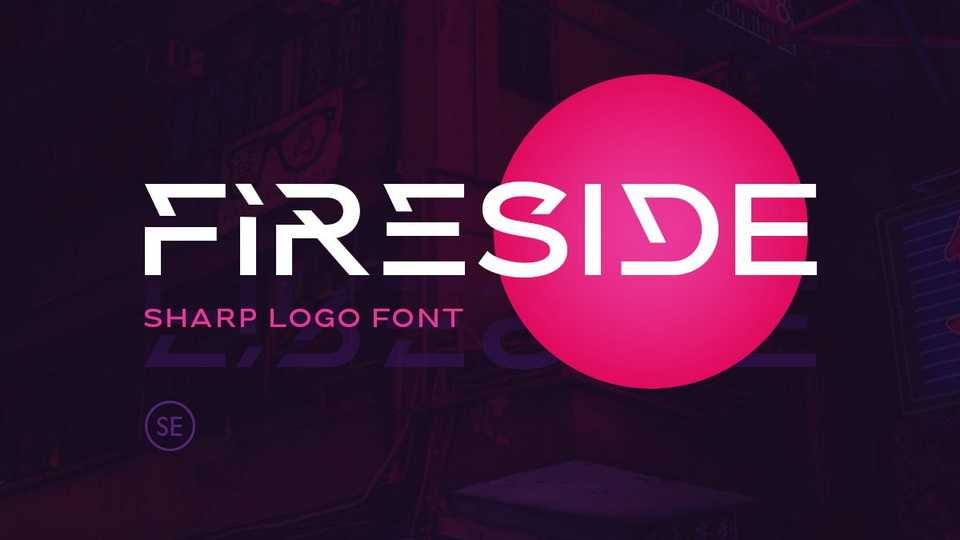
Download Fireside font, a logo font with sharp edge that will make your logotype and design looks more futuristic and edgy. With the unique characters, Fireside font will make your logo even more stunning.